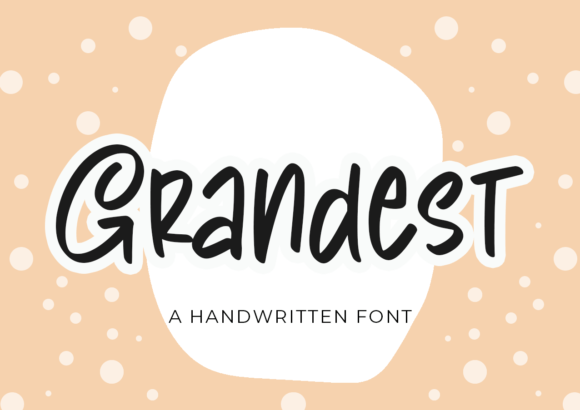
In a world of endless font collections, Grandest Font stands as a beacon of charm and uniqueness, enchanting you with its distinctive script style. Created by the talented font designer fontKong, Grandest is not just a font; it's an artistic expression that weaves together the beauty of handwriting with the allure of modern calligraphy.
As you gaze upon the Grandest Font, you'll be captivated by its inherent cuteness and playfulness. Its whimsical nature effortlessly adds a touch of magic to any design, be it an invitation card, a heartfelt letter, or an eye-catching social media post. Its versatility transcends the boundaries of ordinary typography, making it the perfect choice for a multitude of creative endeavors.
Imagine the delight of your friends and family when they receive an invitation adorned with the elegant swirls and graceful curves of Grandest Font. The font's natural and unique style adds a personal touch, making each invitation a treasured keepsake. Its ability to evoke emotions and create lasting impressions is truly remarkable.
Step into the realm of blogging with Grandest Font as your trusty companion. Craft blog post titles that dance off the screen, captivating your readers with their charm. Your words will take on a new life, as Grandest Font breathes vibrancy into your storytelling. Your blog posts will shine, attracting readers with their visual appeal and compelling content.
Unleash your creativity and embark on your next design project with Grandest Font as your muse. Let your imagination soar as you create breathtaking graphics, eye-catching posters, and stunning social media posts. The font's versatility knows no bounds, allowing you to express your ideas in ways you never thought possible.
With Grandest Font, you'll have the power to transform your creative vision into reality. Its PUA encoding ensures seamless access to a world of cute and enchanting characters, adding a touch of whimsy to your designs. Swashes and ligatures dance harmoniously, adding an extra layer of sophistication and charm.